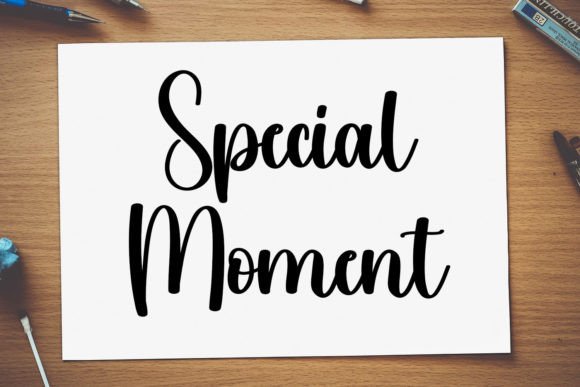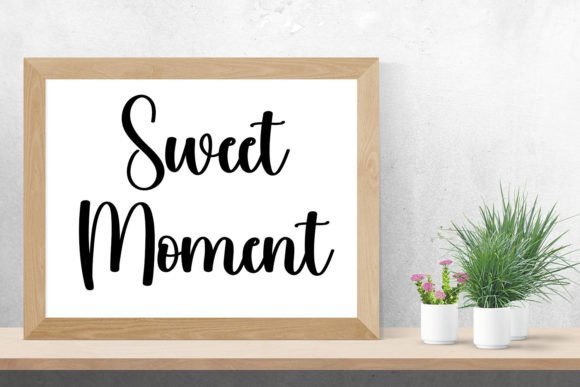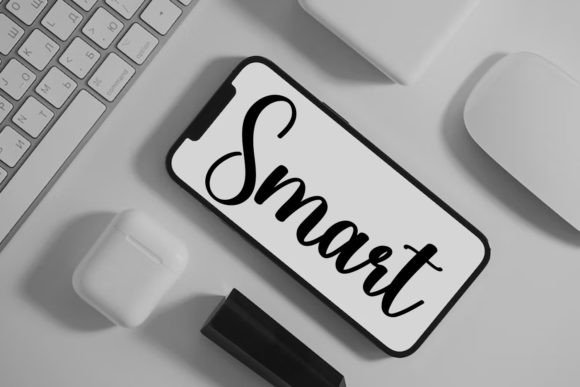
Introducing Daily Font: The Fresh and Beautiful Typeface for Your Design Needs
Are you a designer or crafter looking for a font that can elevate your creative projects? Look no further than Daily Font, a stunning and versatile typeface that’s perfect for a wide range of design purposes. From YouTube banners and cover logo mockups to wedding invitations, ID cards, flyers, and crafts, Daily Font is the ideal choice for anyone seeking a fresh and beautiful font to bring their designs to life.
What Makes Daily Font So Special?
Daily Font is more than just a font – it’s a design solution that can help you create stunning visual content with ease. Its clean and modern design makes it perfect for a variety of applications, from digital designs to print materials. The font’s simplicity and elegance ensure that it can be used in a multitude of contexts, from formal events to casual projects.
Key Features of Daily Font
- Clean and Modern Design: Daily Font boasts a sleek and contemporary design that’s sure to impress. Its clean lines and simple shapes make it easy to read and visually appealing.
- Versatile: Daily Font is a versatile font that can be used in a wide range of design applications, from digital designs to print materials.
- Elegant and Sophisticated: The font’s elegant and sophisticated design makes it perfect for formal events, such as wedding invitations and ID cards.
- Easy to Read: Daily Font is designed to be easy to read, making it perfect for body text and captions.
Use Cases for Daily Font
Daily Font is a versatile font that can be used in a variety of design applications, including:
- YouTube Banners and Cover Logo Mockups: Create stunning YouTube banners and cover logo mockups with Daily Font. Its clean and modern design makes it perfect for digital designs.
- Wedding Invitations: Daily Font’s elegant and sophisticated design makes it perfect for wedding invitations and other formal events.
- ID Cards: The font’s clean and simple design makes it easy to read, making it perfect for ID cards and other identification materials.
- Flyers and Brochures: Daily Font is a great choice for flyers and brochures, adding a touch of elegance and sophistication to your marketing materials.
- Crafts and DIY Projects: Daily Font is also perfect for crafters and DIY enthusiasts, adding a personal touch to your handmade projects.
Why Choose Daily Font?
There are many fonts available, but Daily Font stands out from the rest due to its unique combination of style, versatility, and readability. Here are just a few reasons why you should choose Daily Font for your design needs:
- Unique Design: Daily Font has a unique design that’s both fresh and beautiful, making it perfect for designers and crafters looking for a font that stands out.
- High-Quality: The font is designed to be high-quality, ensuring that it looks great in any design application.
- Easy to Use: Daily Font is easy to use, even for those who are new to design. Its simplicity and elegance make it easy to incorporate into any design project.
In conclusion, Daily Font is a fresh and beautiful font that’s perfect for a wide range of design purposes. Its clean and modern design, versatility, and elegance make it an ideal choice for designers and crafters looking for a font that can elevate their creative projects. Whether you’re creating YouTube banners, wedding invitations, ID cards, flyers, or crafts, Daily Font is the perfect choice. So why wait? Download Daily Font today and take your designs to the next level!